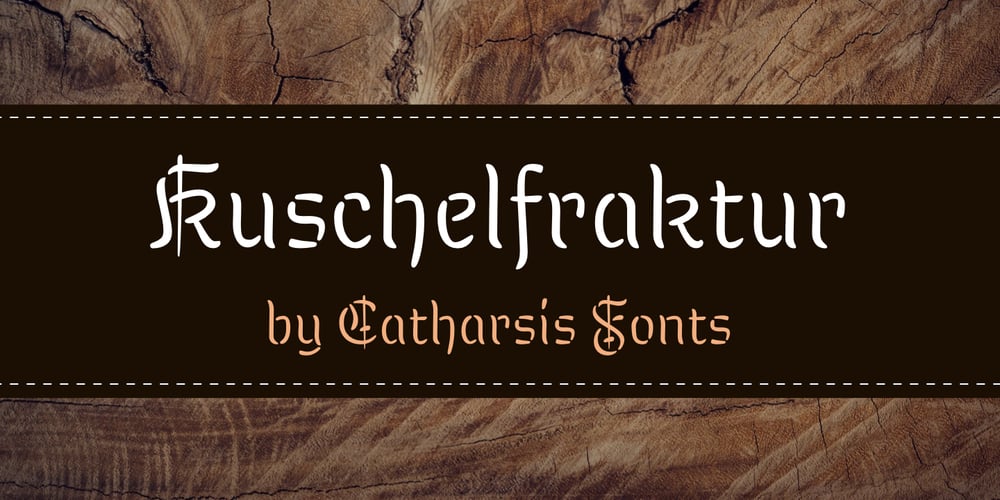
Kuschelfraktur
Kuschelfraktur font
Kuschelfraktur Font Family was designed by Christian Thalmann and published by Catharsis Fonts. Kuschelfraktur contains 6 styles and family package options. Kuschelfraktur is a unique, eye-catching take on the theme of blackletter that replaces the broad nib with a brush pen and achieves stroke modulation through stencil-like gaps. It combines the texture and dignity of blackletter with the human warmth of informal handwriting. Kuschelfraktur offers five separate sets of capital letters and several additional customization option via stylistic alternates. The degree of ornamentation in the blackletter capitals can be increased (SS02) or decreased (SS07), while SS04 and SS05 offer two simpler approaches to capital letters that bridge from blackletter to Roman letters (Antiqua). The default single-storey �a� can be replaced with a two-storey version in SS01, and SS08 offers a single-storey capital �A� for the simple capitals. Finally, SS03 restores some of the more unique letter shapes of the Fraktur style of blackletter. The old-style figures can be replaced with lining and/or tabular figures. All these stylistic sets are accessible via OpenType from the main font, Kuschelfraktur, whereas the spin-off fonts (Traditional, Verziert, Text, Schlicht, Antiqua) offer convenient access to those sets even in environments without OpenType support. I am grateful to the helpful souls on the TypeDrawers and Typographie.info forums for encouragement and constructive feedback, and to the Glyphs team for their fantastic type editor. Kuschelfraktur is dedicated to my son Marius.